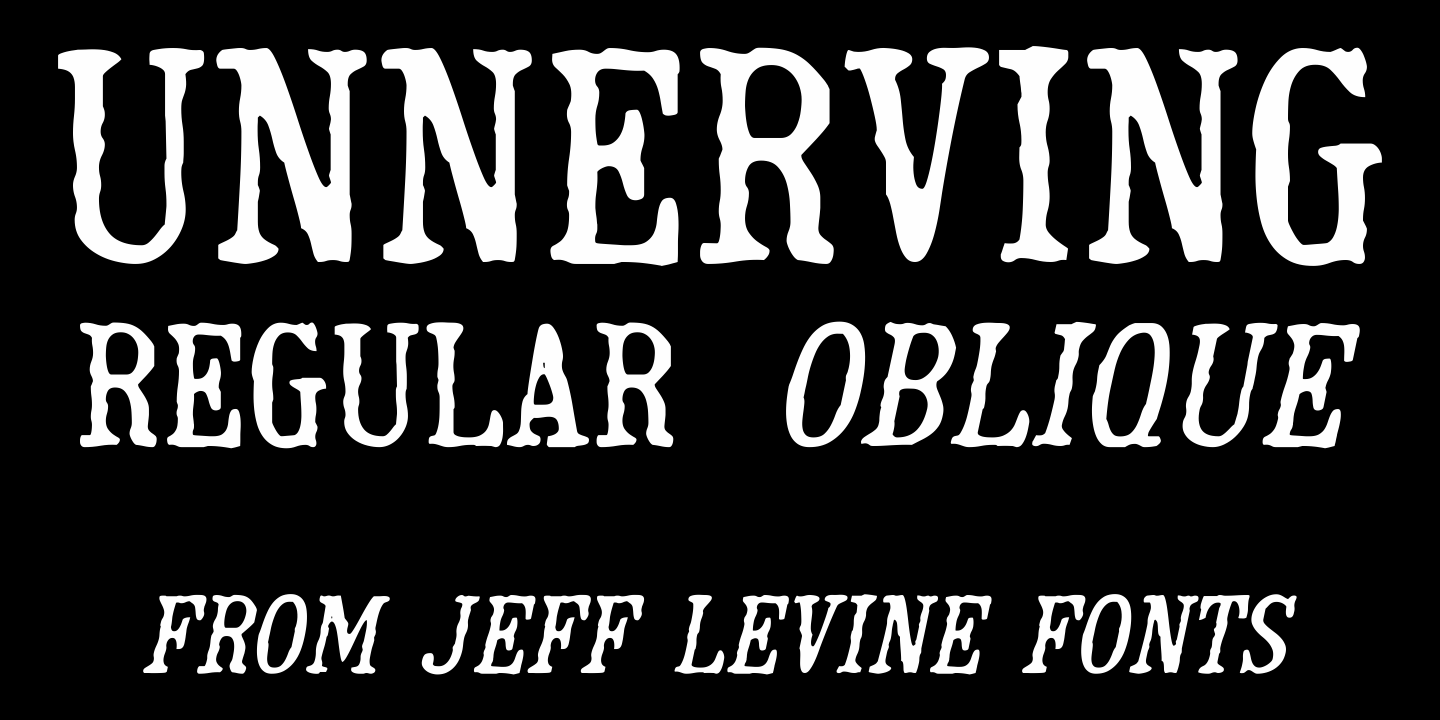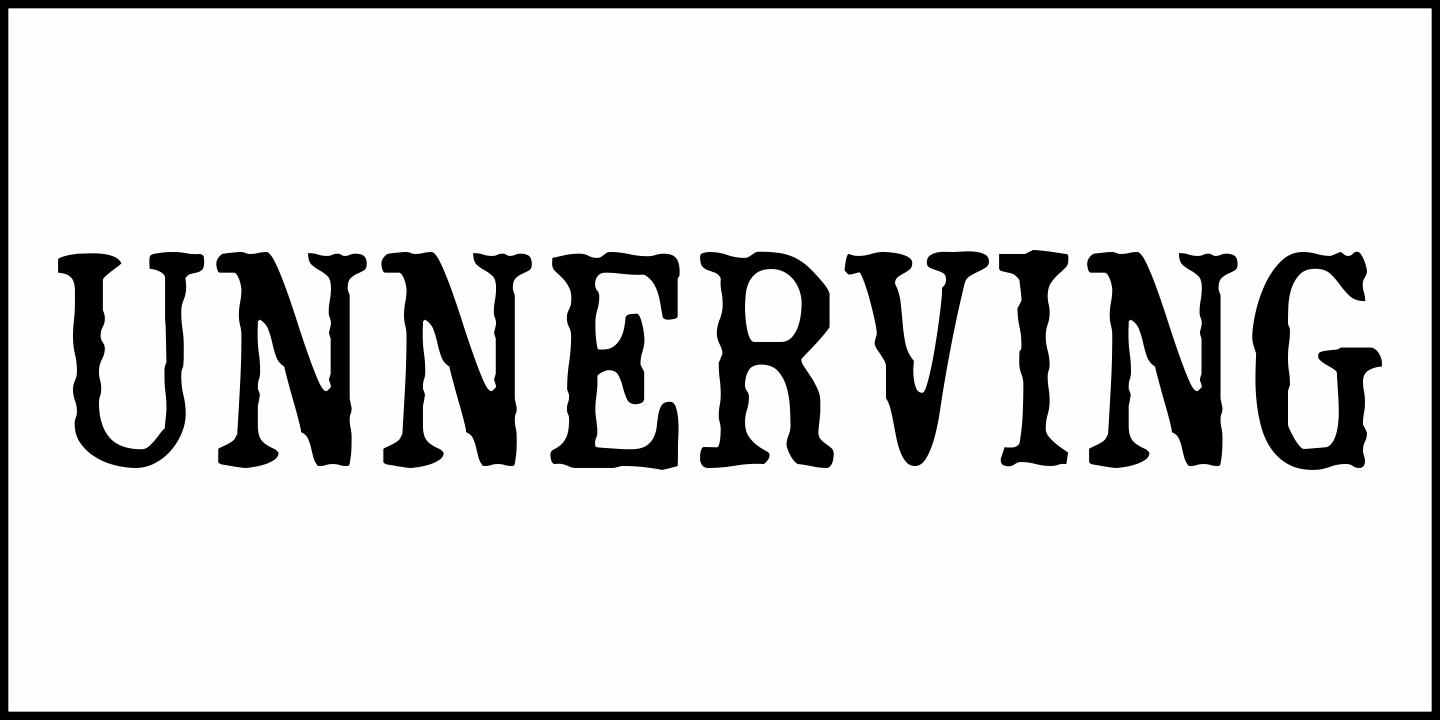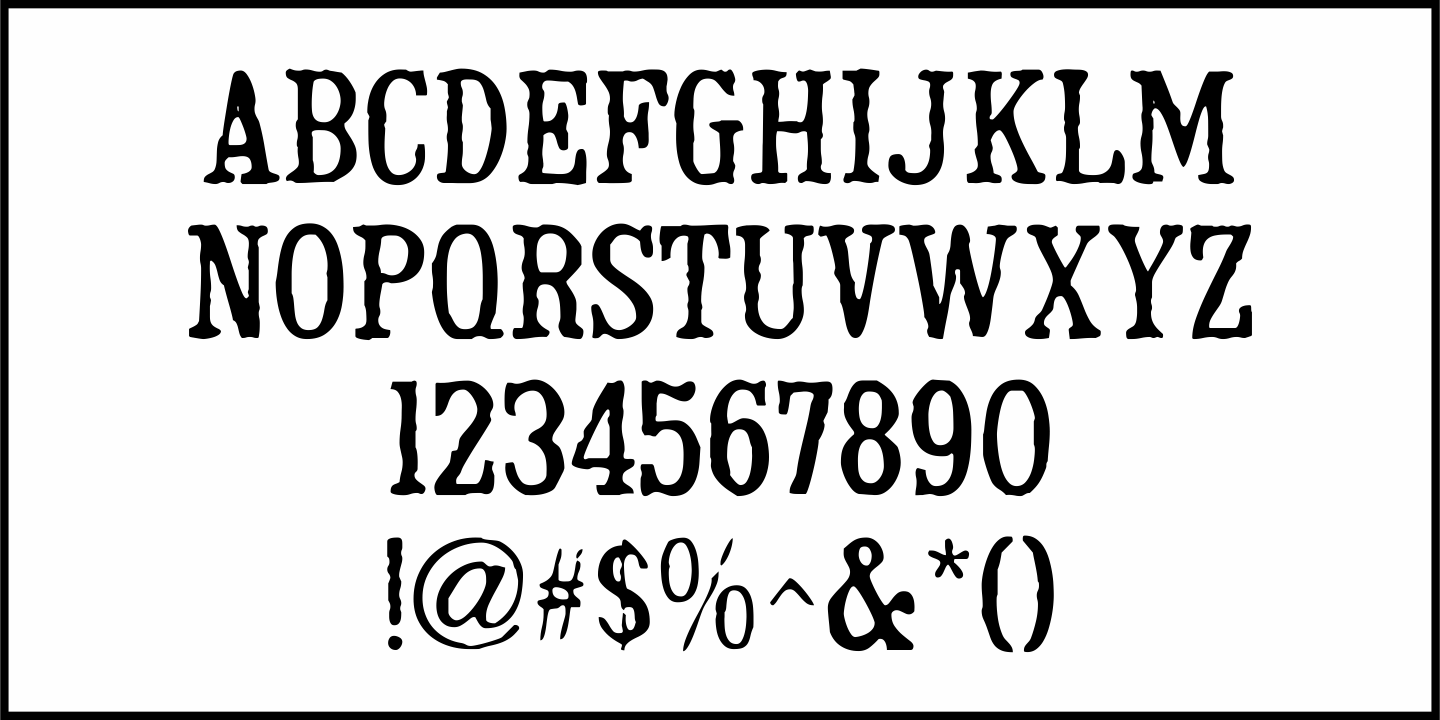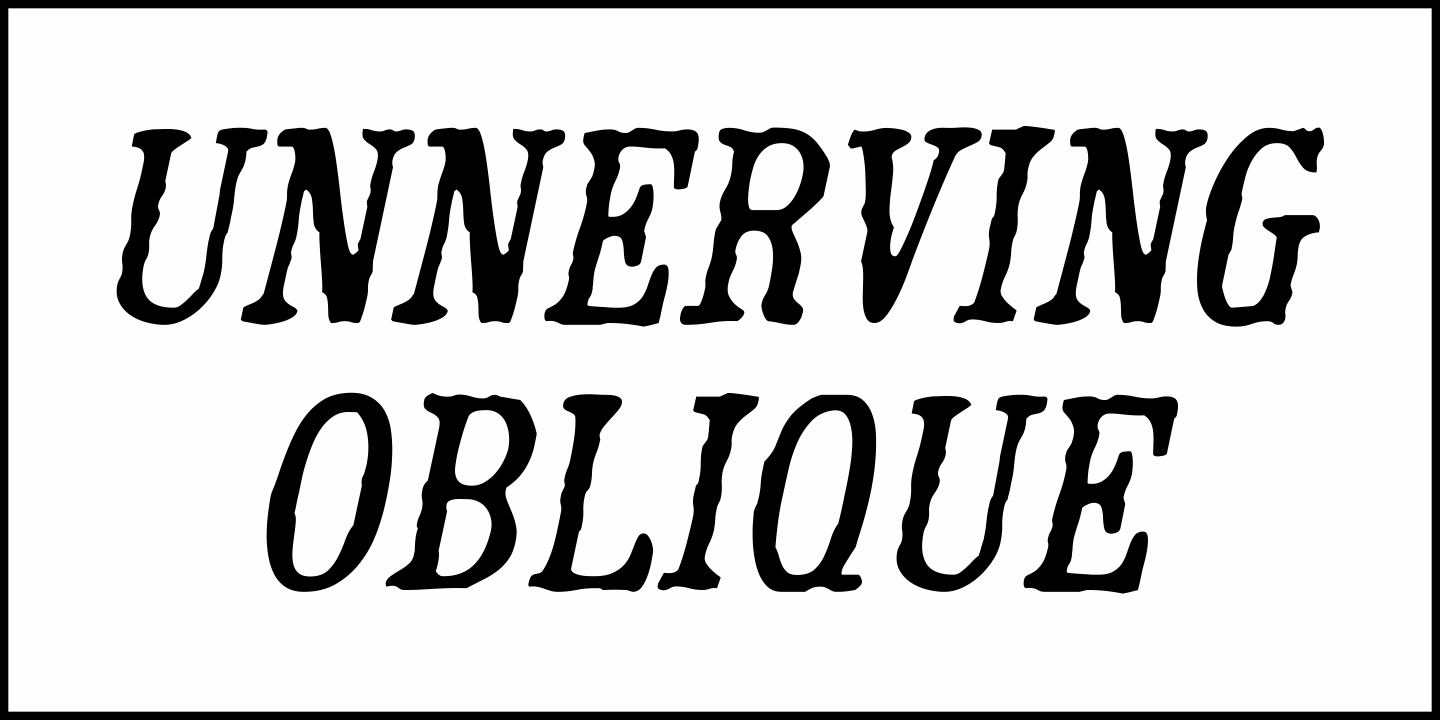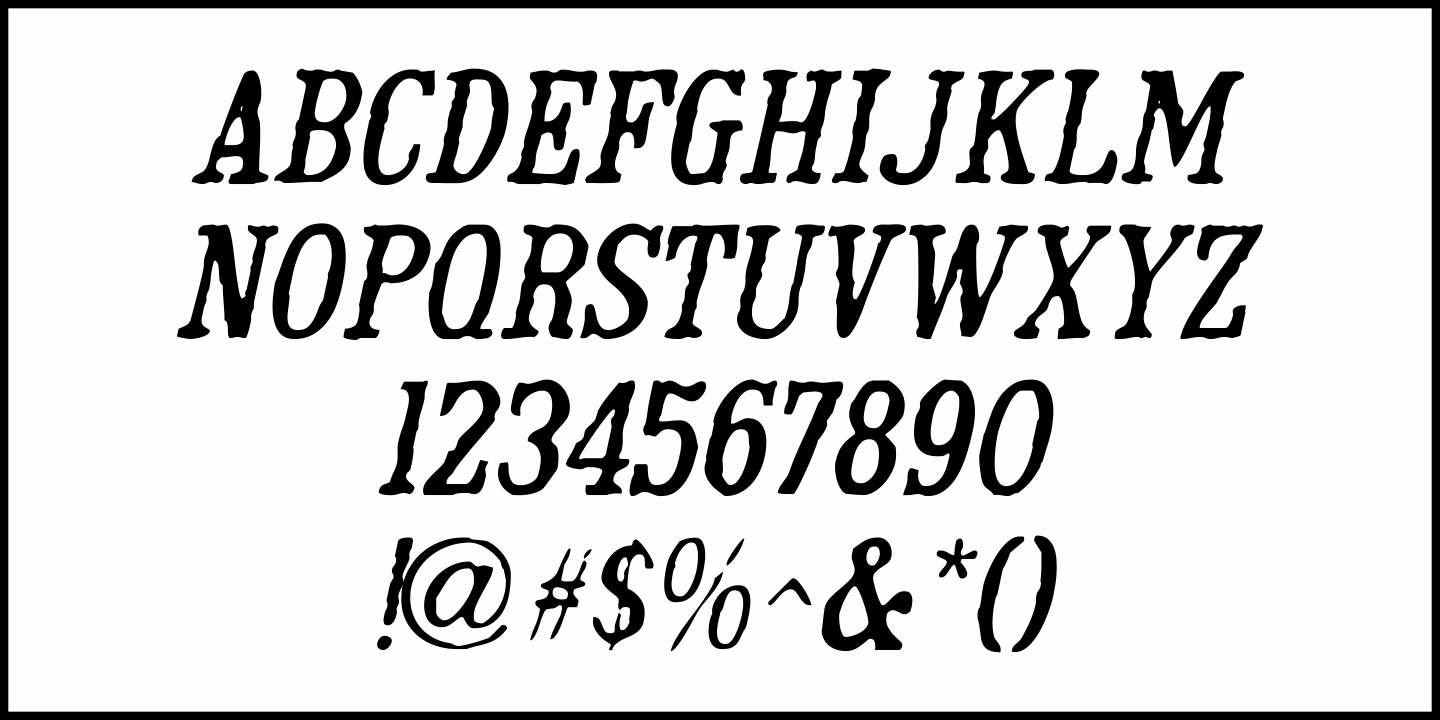
Unnerving
Unnerving JNL is a distorted/distressed version of Adhesive Serif Letters JNL (of which the original design was modeled after some vintage gummed letters used for signage).
This new variant evokes a feeling of apprehension, dread or fear and can be applied to any project with a spooky or sinister theme.
Unnerving JNL is available in both regular and oblique versions.